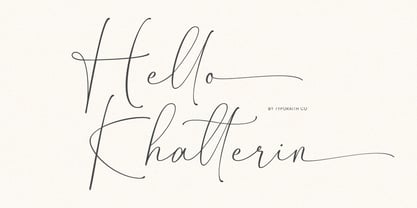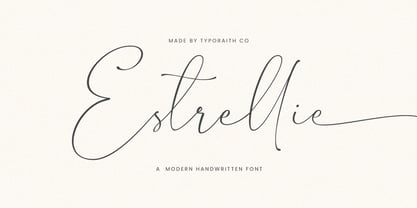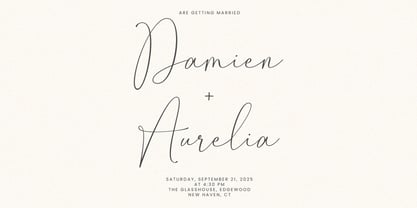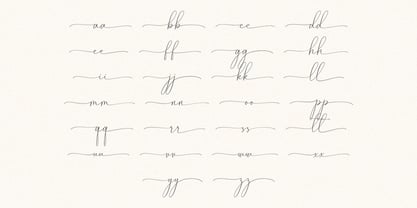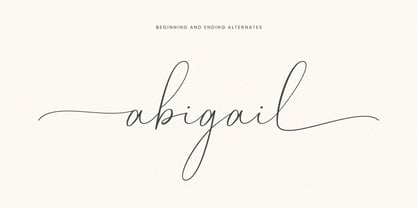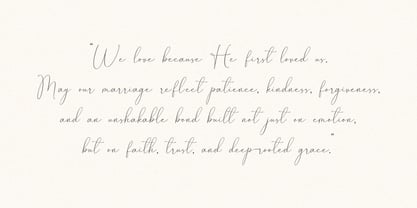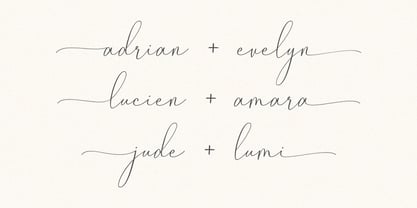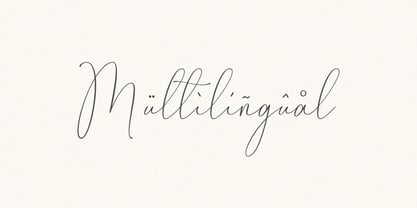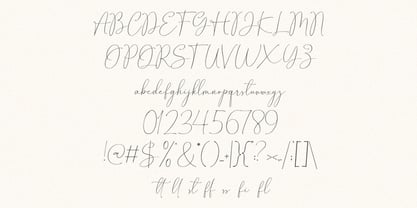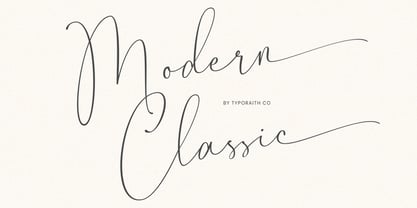
Estrellie
The Estrellie Font Family was designed by Rendy Riyananda and published by Typoraith Co. Estrellie contains 1 styles. More about this family
Estrellie is a delicate and modern handwritten font that blends subtle charm with clean minimalism. Crafted with care and attention to detail, each letter is designed to look effortlessly elegant as if written by hand with a smooth ink pen on fine stationery.
This font is perfect for:
- Wedding invitations
- Branding & logo design
- Social media quotes
- Packaging
- Stationery and editorial layouts
Whether you're creating romantic wedding suites or refined brand identities, Minette adds a personal yet polished touch to your designs.
- Uppercase & lowercase characters
- Numbers & punctuation
- Multilingual support
- Alternates & Ligature
Let Estrellie bring grace and simplicity to your creative work where every word feels handwritten with heart.